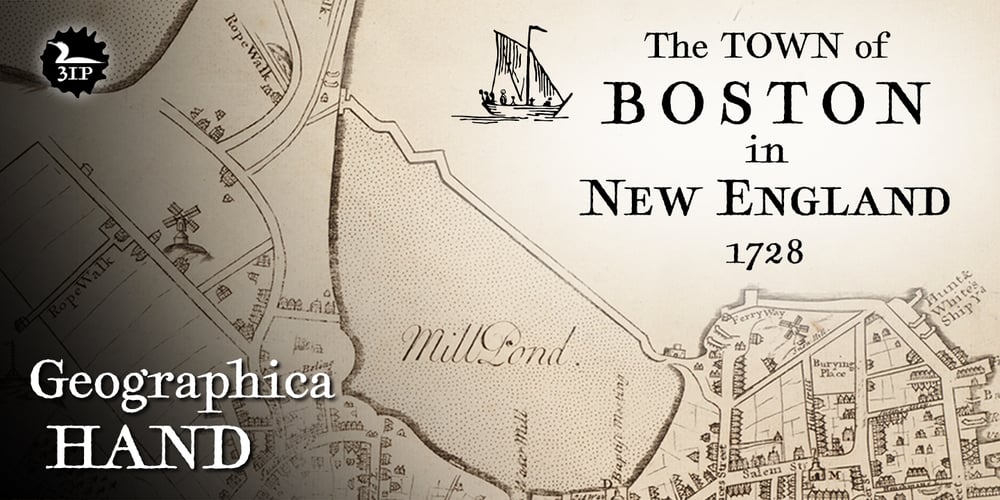
Geographica Hand Font Family was designed by Brian Willson and published by Three Islands Press. Geographica Hand contains 1 styles and family package options. Geographica Hand replicates the neat hand-lettering typical of engraved British maps of the 18th century, including the work of cartographers Emanuel Bowen (circa 1694–1767), Geographer to King George II, and Thomas Jefferys (circa 1719–1771) Geographica ro King George III. A kindred font to our Geographica serif family, Geographica Hand exhibits long serifs, irregular edges, and a genuinely hand-made character. Use to simulate historical materials, vintage documents, or other time-worn text. The OpenType release of Geographica Hand comes with true small capitals, contextual and historical ligatures, a series of sketchy map ornaments (e.g., trees, churches, windmills, boats), and full Latin support.